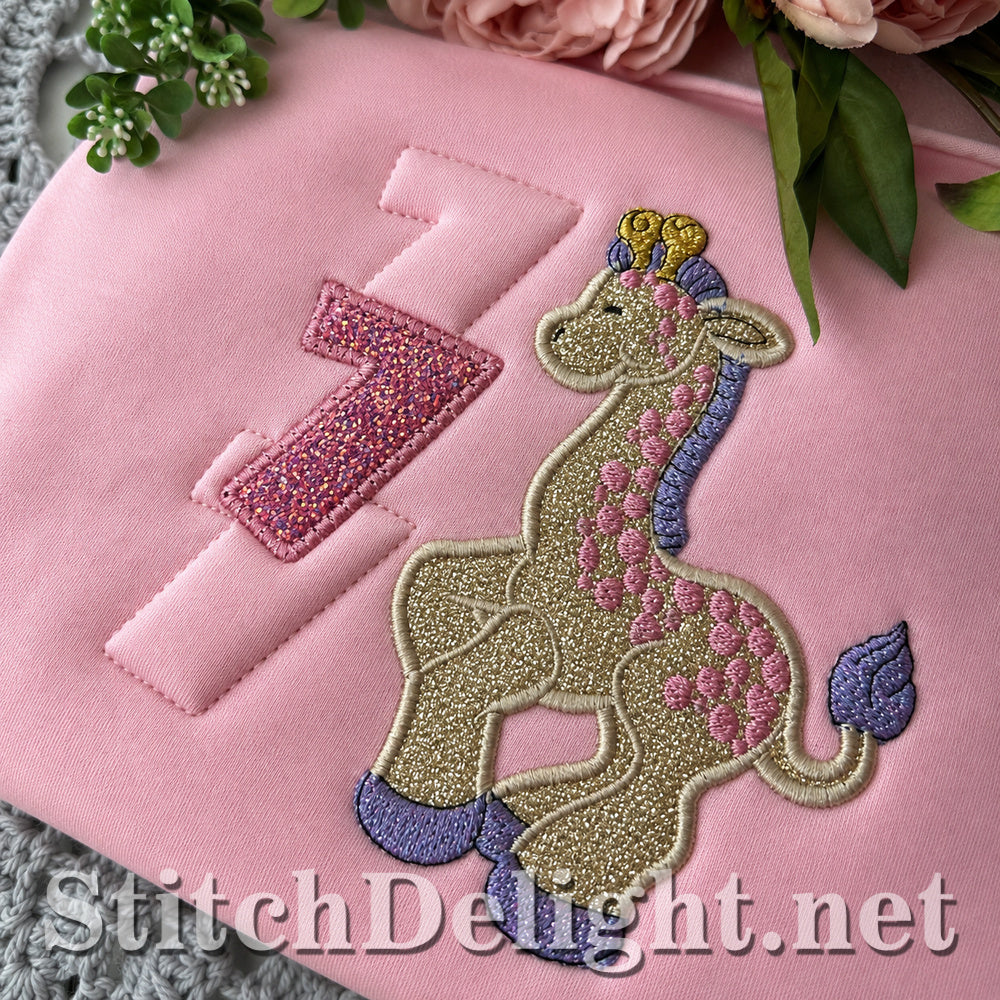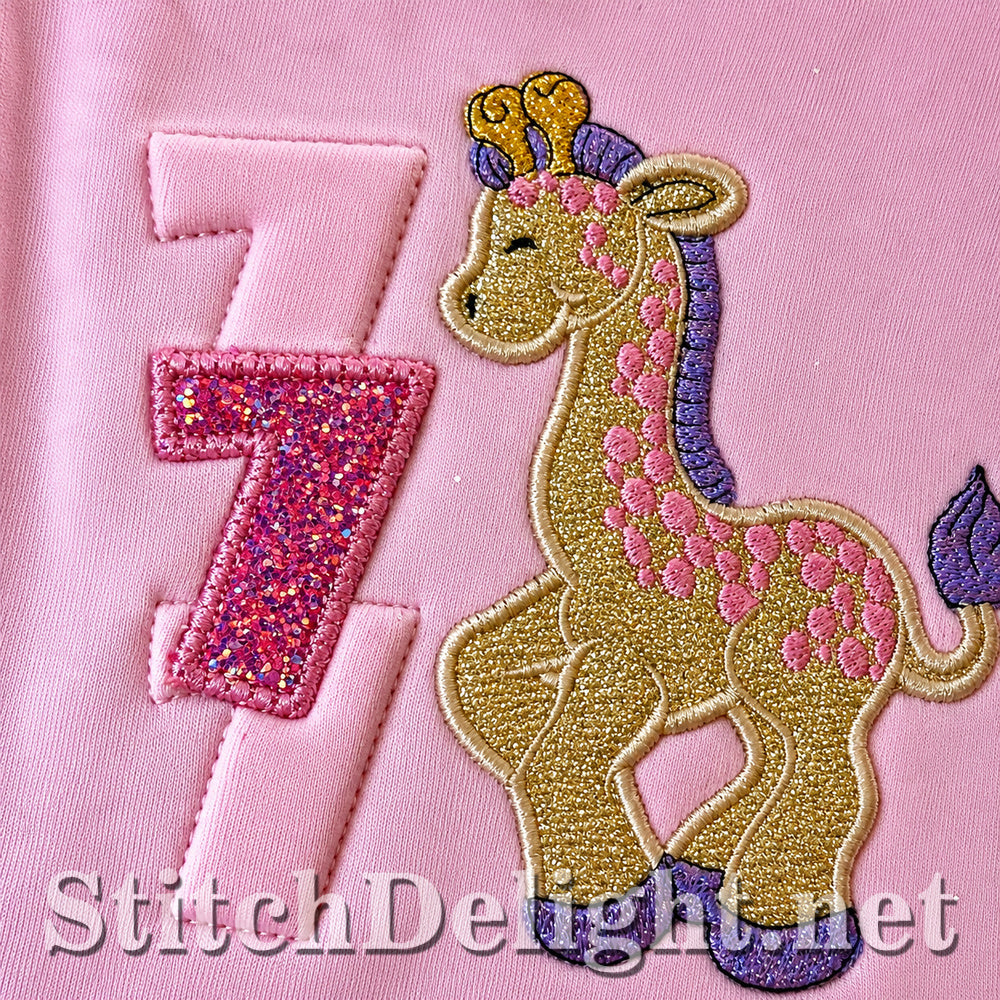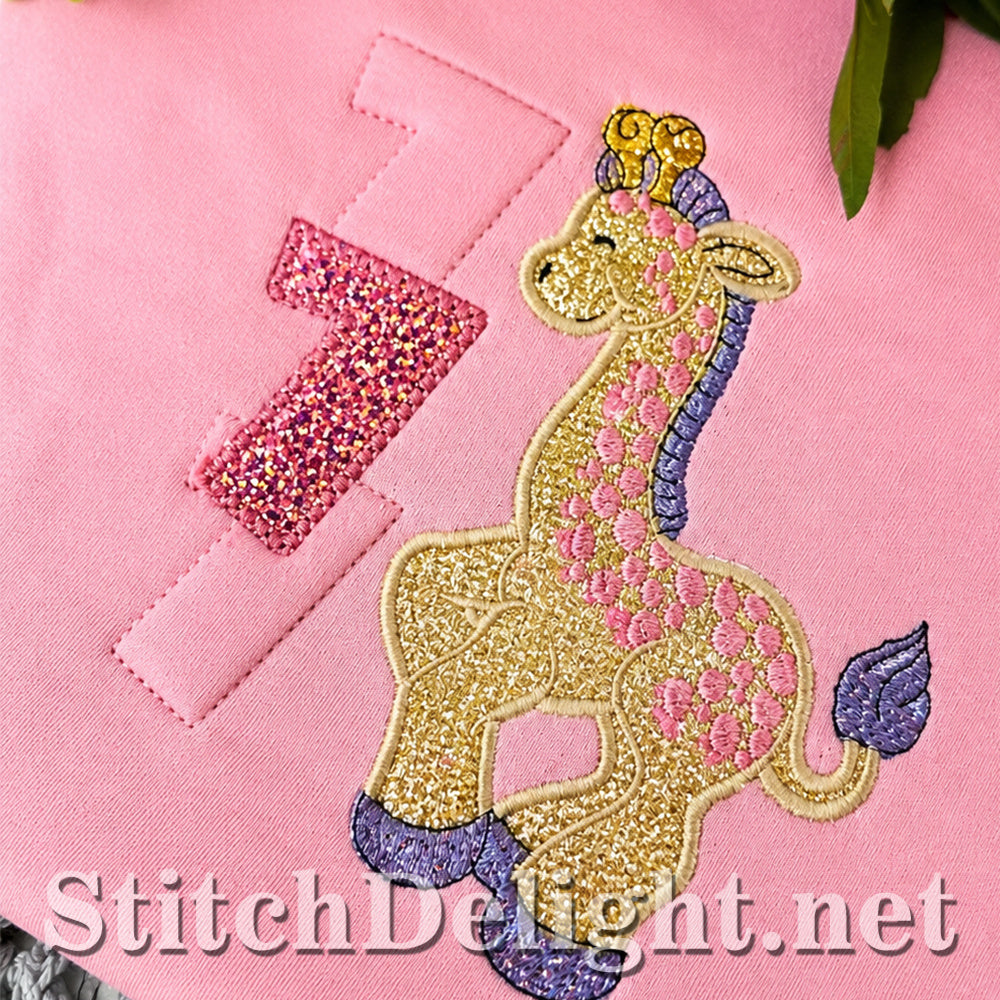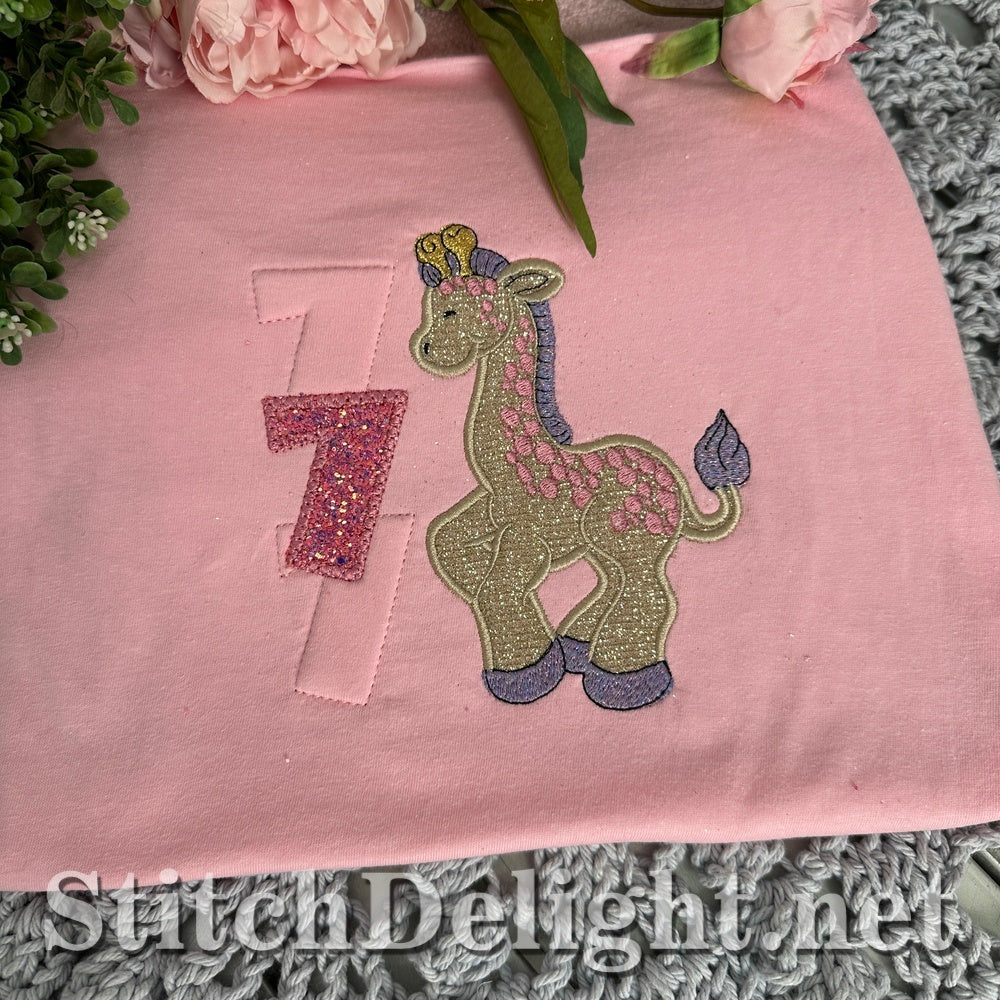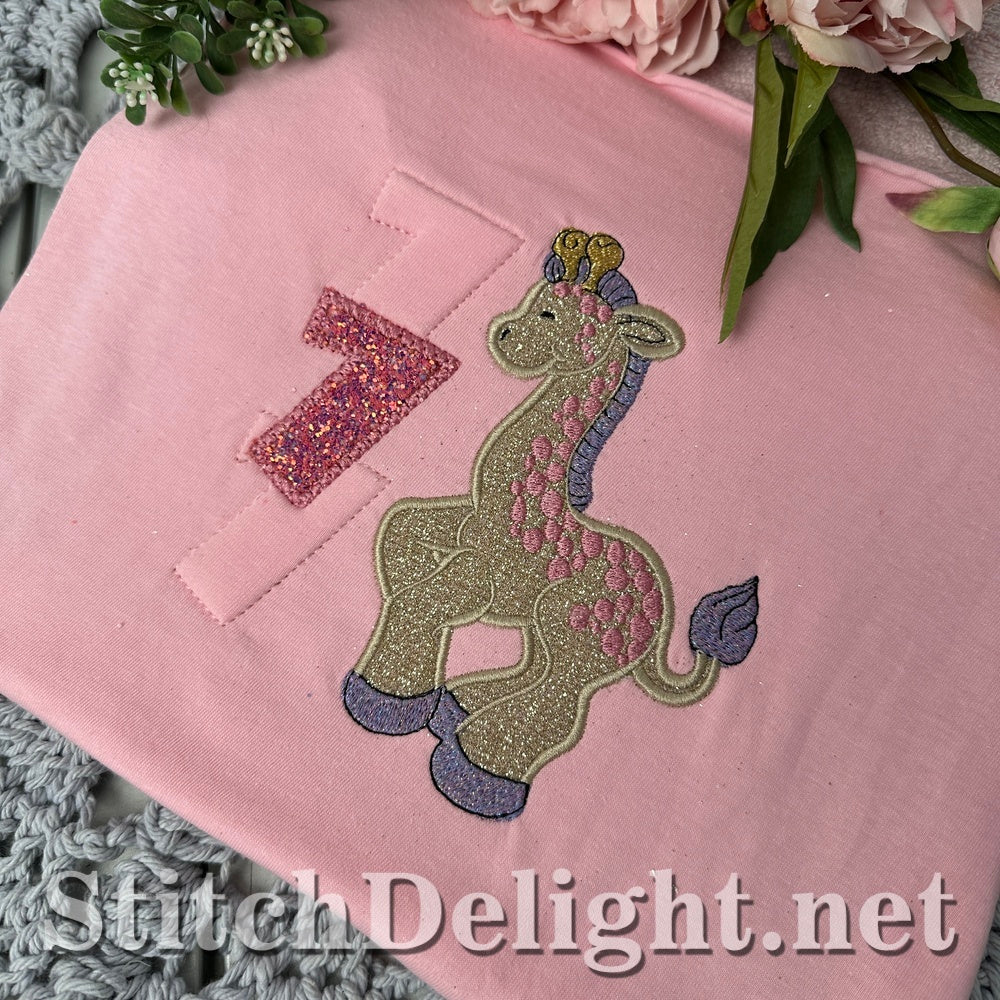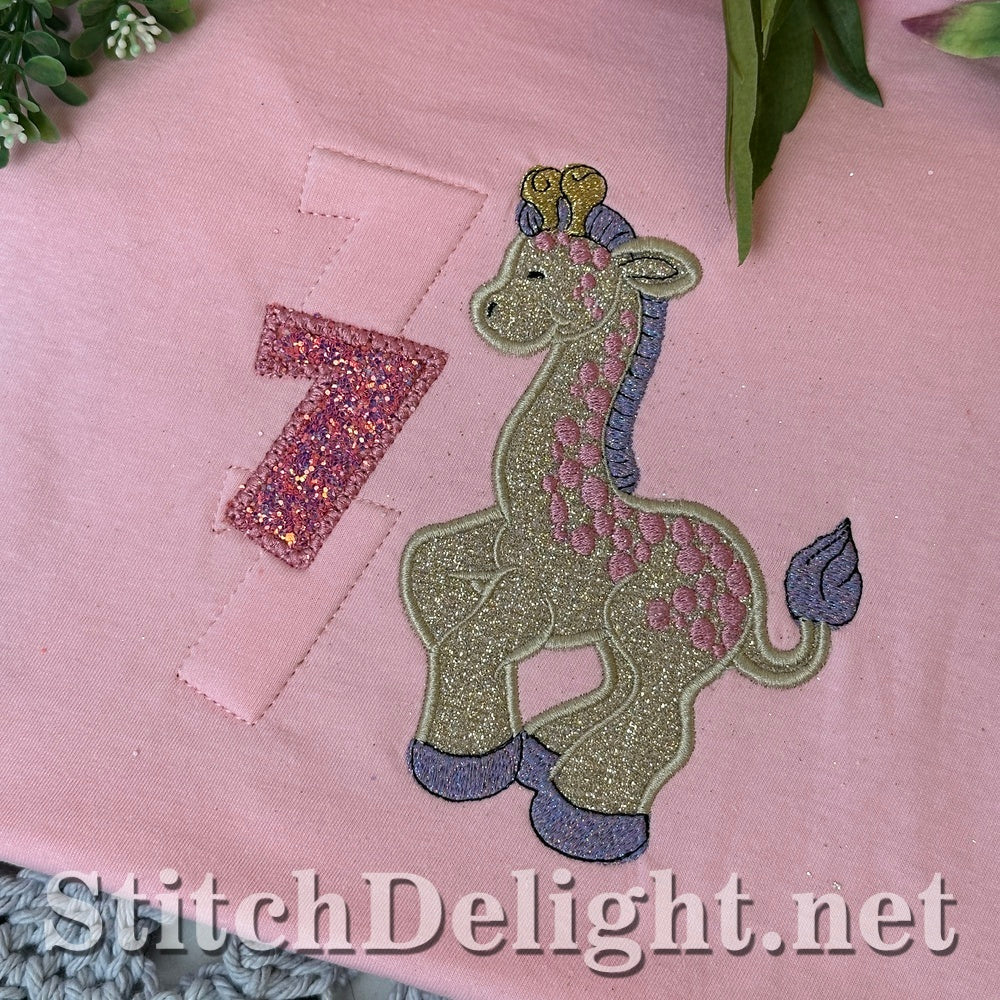
Create birthday outfits they'll treasure forever with these adorable Embossed Birthday Numbers!
This collection includes all ten numbers (0–9), each designed with a beautiful layered effect that gives your projects wonderful dimension.
The glitter number is stitched on top, while the matching outline number is embroidered with 3D embroidery foam underneath, creating a raised embossed effect that really makes the design stand out. The result is a fun, modern look with depth and texture that's simply gorgeous in person.
- Numbers 0 through 9
- Raised 3D foam outline for an embossed appearance
- Decorative glitter appliqué number layered on top
- Designed to coordinate perfectly with our Collectors Fonts and birthday appliqués